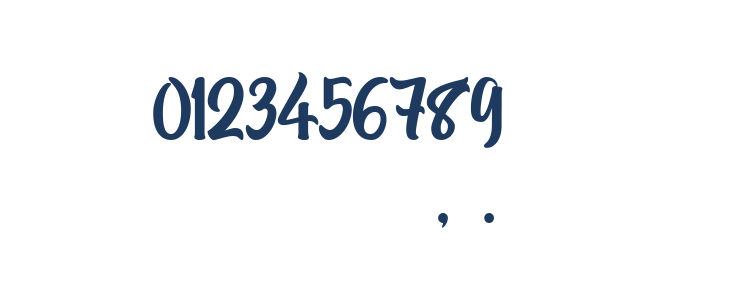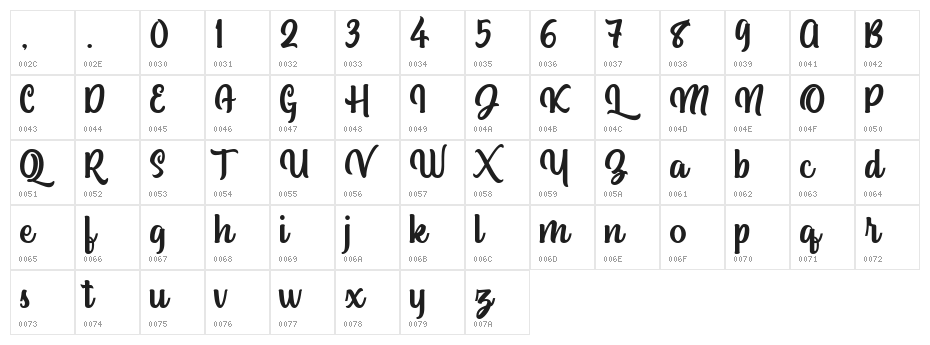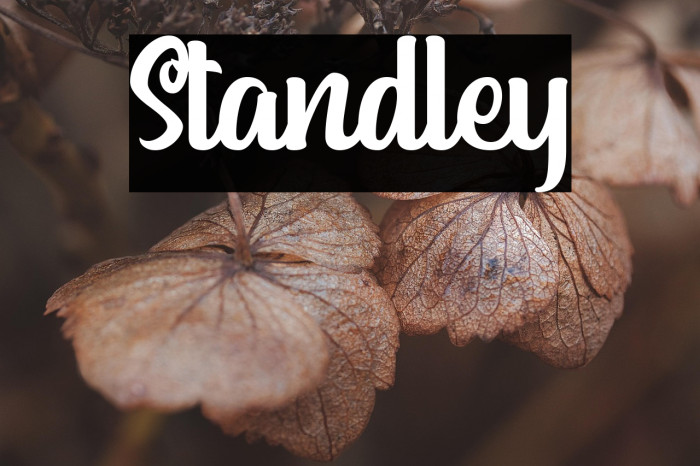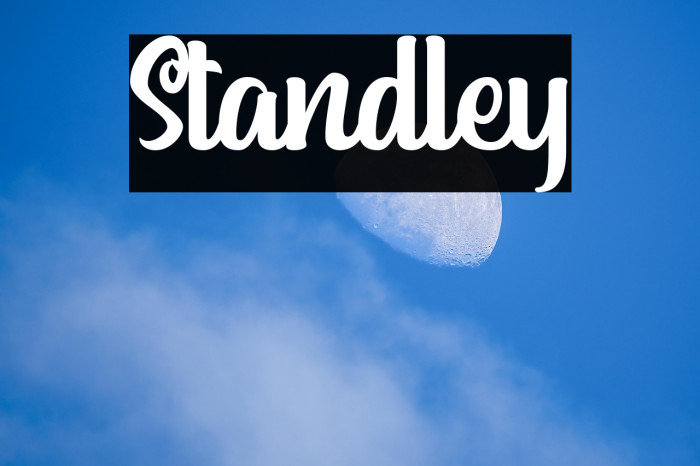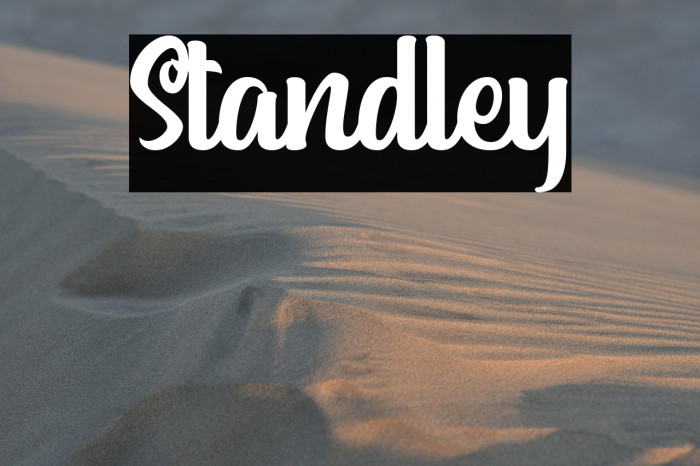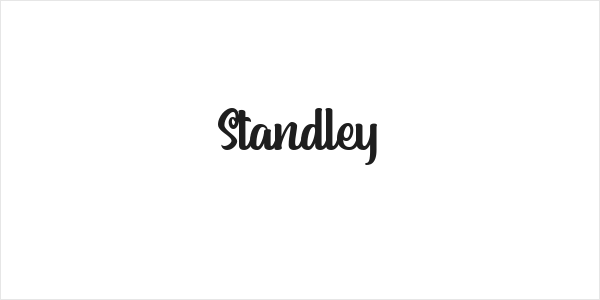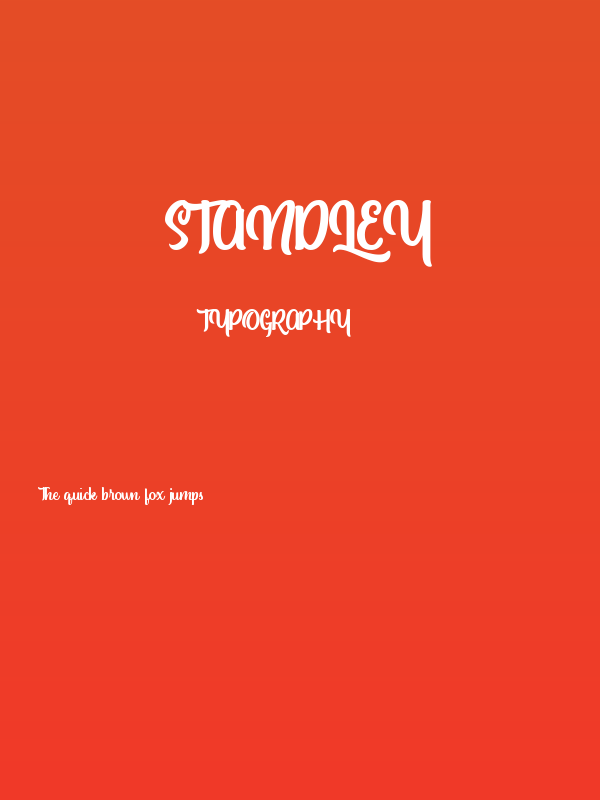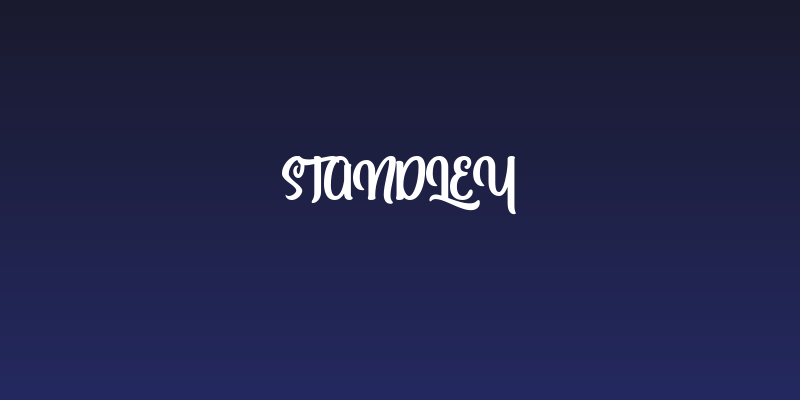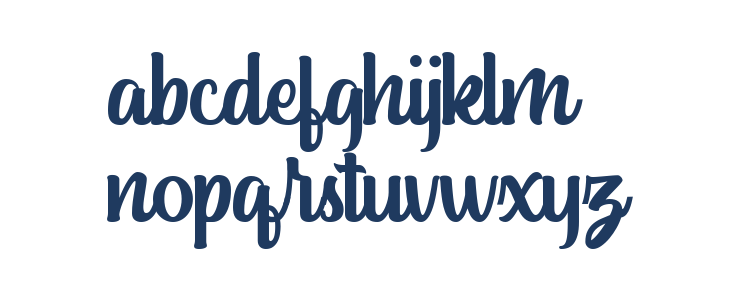
Standley Font
Standley Description
This font features a bold, flowing script style that combines elegance with a playful touch. The uppercase letters are characterized by their sweeping curves and loops, giving them a dynamic and lively appearance. The lowercase letters maintain a consistent flow, with some characters featuring unique flourishes that add to the overall charm. The numerals are equally bold and maintain the same fluid style, ensuring consistency across all characters. This font is perfect for creating eye-catching designs that require a touch of sophistication and creativity.